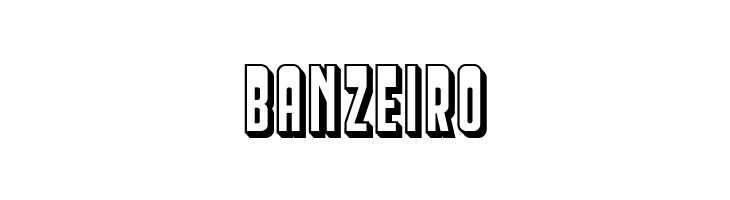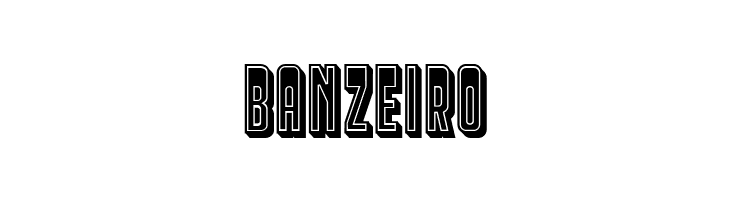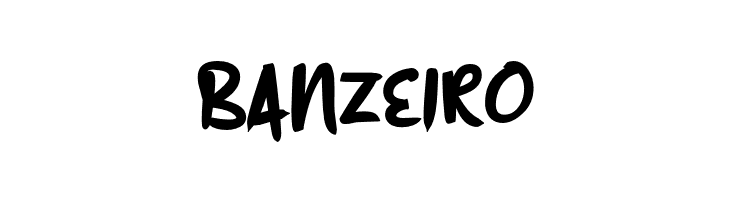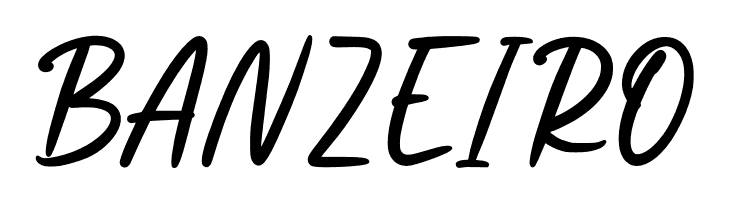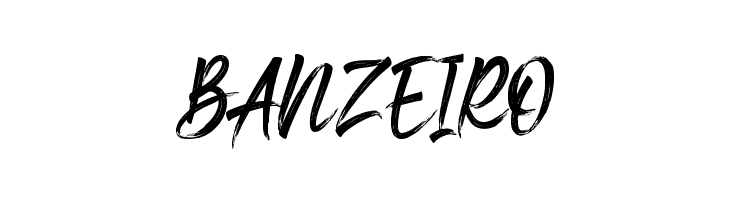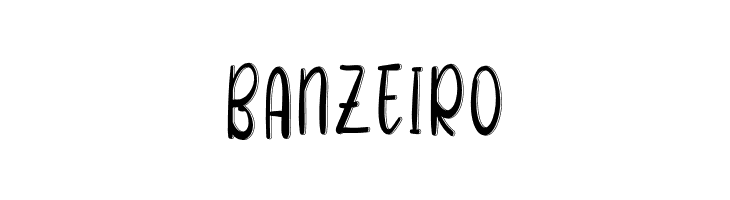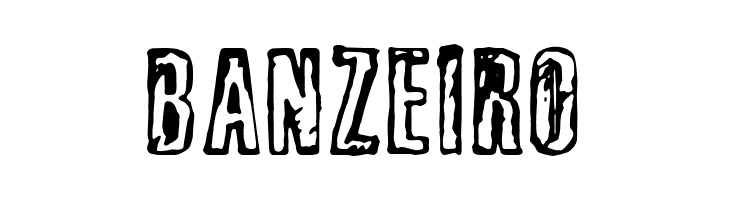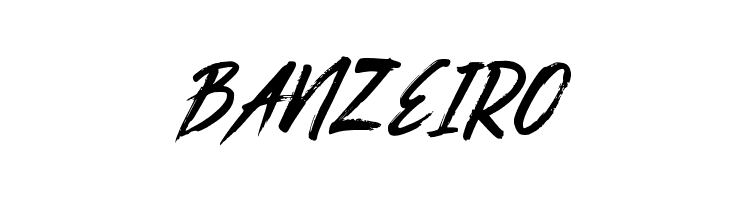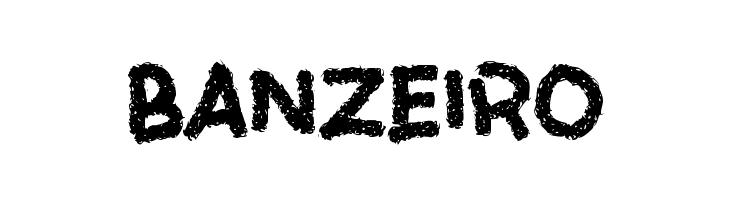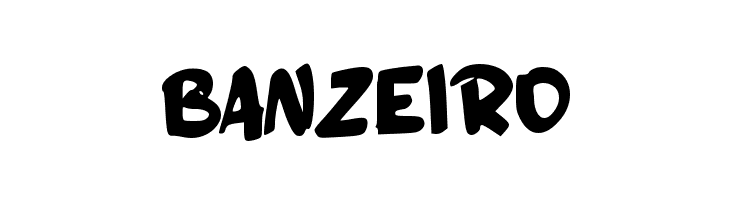
A bold, geometric font with an industrial and futuristic design.
An elegant script font with flowing, cursive letters and a classic appearance.
A bold, playful font with a hand-drawn, casual style.
A dynamic and fluid script font with a handwritten quality and playful charm.
A whimsical, illustrative font with cartoon-like characters and scenes.
A bold, textured font with an organic, hand-crafted appearance.
A bold, brush-style script font with dynamic and fluid characters.
A bold, brush-style handwritten font with dynamic strokes.
A dynamic, swash-filled font with fluid, calligraphic strokes.
An elegant and flowing script font with a calligraphic style.
A bold, three-dimensional font with a shattered glass effect.
Bold, modern business icons with high clarity and minimalistic design.
Bold, business-oriented icon set with simplified silhouettes.
A modern, elegant handwritten font with flowing, connected letterforms.
A sophisticated script font with elegant, flowing cursive letterforms.
A bold, geometric font with a 3D shadow effect, ideal for striking headlines.
A bold, geometric font with a three-dimensional outline, ideal for impactful headlines.
Vintage-style illustrated business people icons for display use.
A dot matrix style font with a retro digital aesthetic, featuring condensed, pixelated characters.
A dot matrix style font with a retro digital display look.
A bold, distressed font with a grunge, hand-drawn aesthetic.
A dynamic and fluid script font with a handwritten style.
A chaotic, ink-splattered font with irregular, jagged characters.
A bold, handwritten font with a playful and dynamic style.
A bold, playful handwritten font with rounded strokes and a casual style.
A cursive, handwritten-style font with smooth, flowing strokes.
A modern, elegant script font with a fluid, handwritten style.
A bold, high-contrast brush script font with an energetic and dynamic style.
A bold, brush-style script font with dynamic and expressive strokes.
A bold, geometric font with square, blocky characters.
Illustrative display font featuring business people in office scenes.